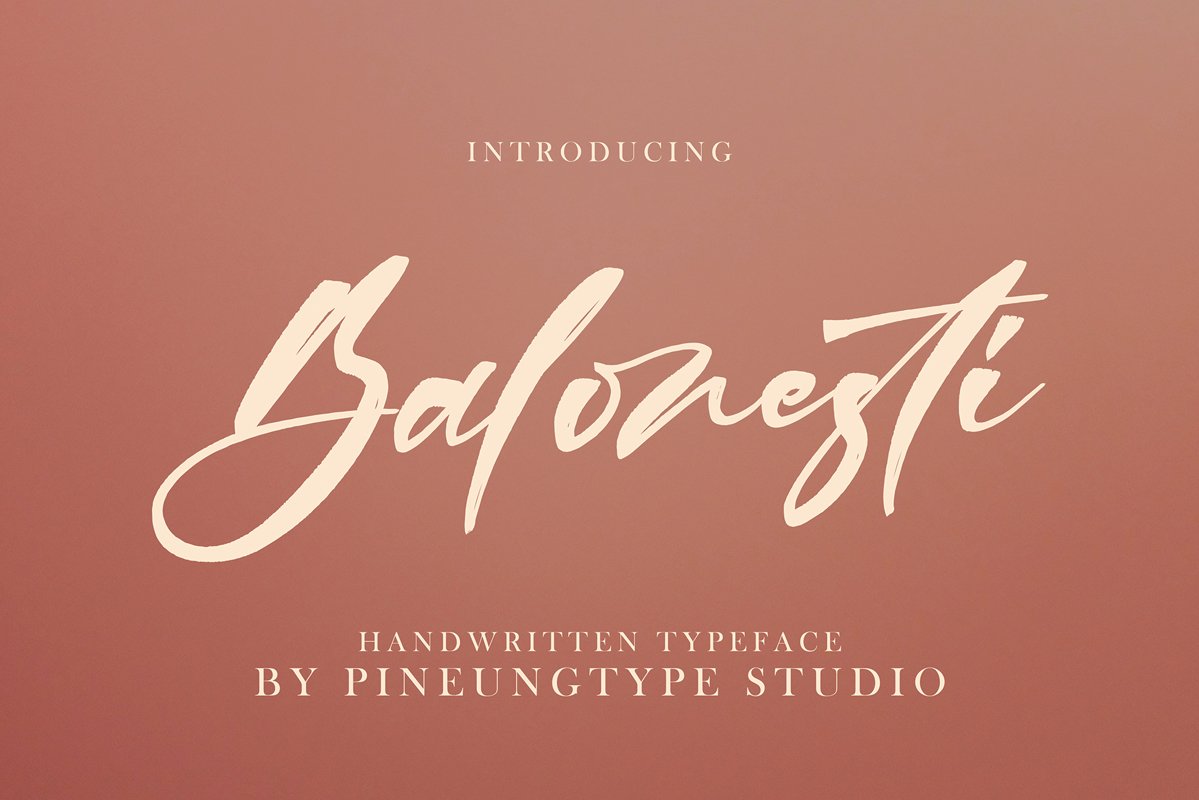
Balonesti
Balonesti handwritten font with new style, this font will perfect for many different project ex: quotes, logo, blog header, poster, banding, fashion, apparel, letter, invitation, stationery, etc...